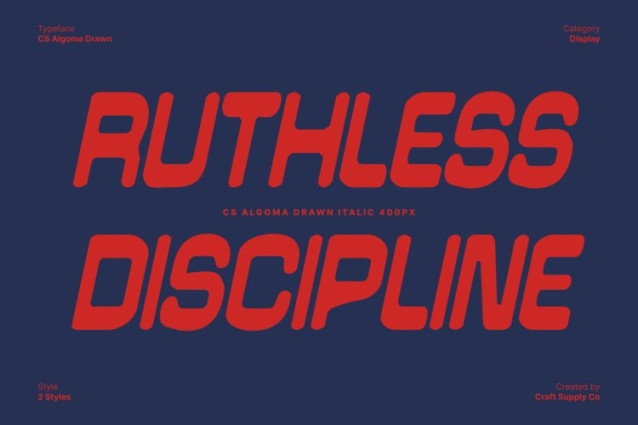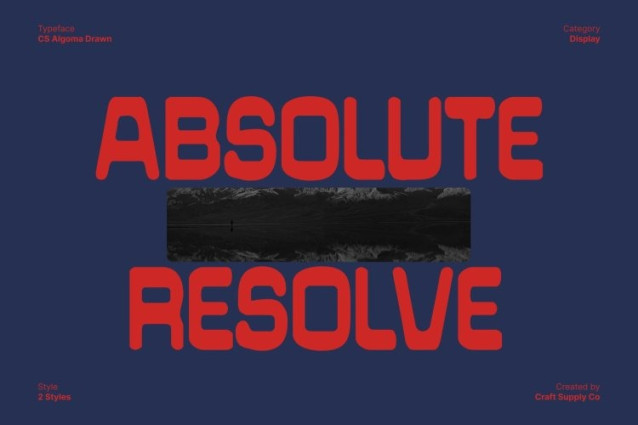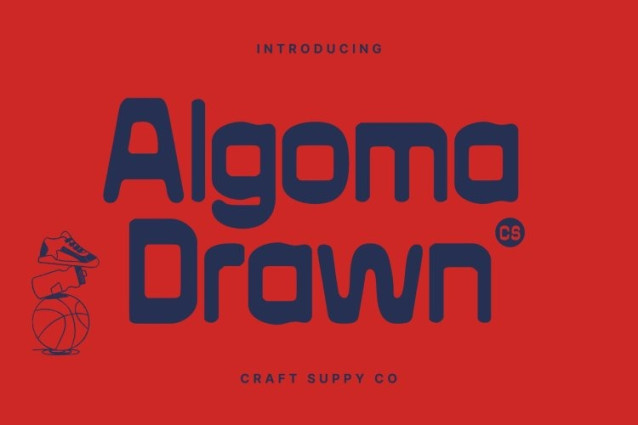
CS Algoma Drawn Font
CS Algoma Drawn Font This is a reverse contrast sans serif display font that blends retro charm with modern design precision. Its distinctive stroke contrast where horizontal strokes appear bolder than vertical ones creates an unexpected visual rhythm that feels playful, confident, and highly expressive. Combined with modular, geometric construction, this font delivers a strong personality that instantly stands out.
Vintage Spirit with a Contemporary Edge
Inspired by mid-century design, classic signage, and experimental typography, this font captures the warmth of retro aesthetics while maintaining a clean, contemporary structure. The reverse contrast approach breaks traditional typographic rules, resulting in letterforms that feel nostalgic yet refreshingly modern perfect for designers seeking originality without sacrificing clarity.
Hand-Drawn Texture for Unique Character
The drawn effect adds a natural, organic texture to each letter, softening the geometry and giving the font a handcrafted feel. These subtle imperfections bring warmth and individuality, making every character feel alive, unique, and full of personality rather than rigid or mechanical.
Perfect for Bold Branding and Creative Promotion
This font excels in posters, branding, editorial layouts, packaging, and promotional visuals. Its retro-modern fusion, bold presence, and handcrafted texture make it an excellent choice for brands and creatives who want to communicate confidence, creativity, and a distinctive visual identity with timeless appeal and modern energy.